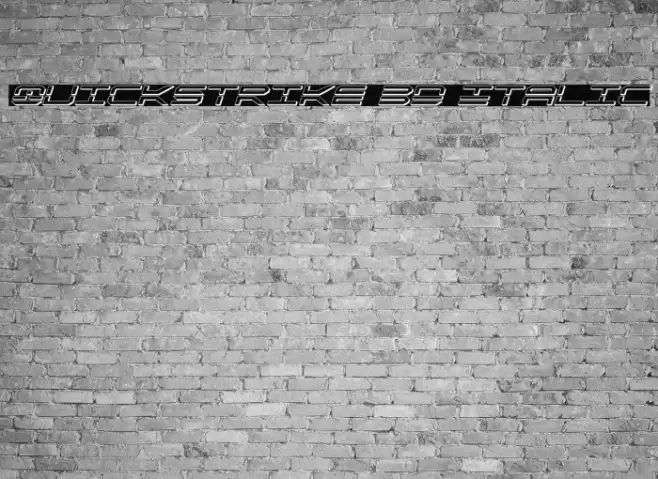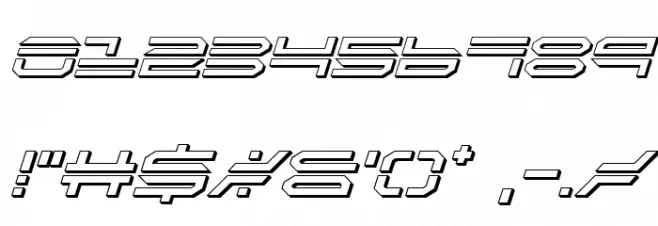
QuickStrike 3D Italic Font
QuickStrike 3D Italic Description
This font features a bold, three-dimensional design with an italic slant, creating a dynamic and futuristic appearance. The characters are outlined with a double-line structure, giving them a layered, shadowed effect that enhances the 3D illusion. The geometric shapes and sharp angles contribute to a modern and edgy style, making it stand out in any design. The uppercase letters are consistent in height, while the numbers and special characters maintain the same bold and structured aesthetic. The font's unique style is suitable for projects that require a strong visual impact.
A bold, 3D italic font with a futuristic and dynamic design from Uncategorized fonts.
- Overall Style: Futuristic